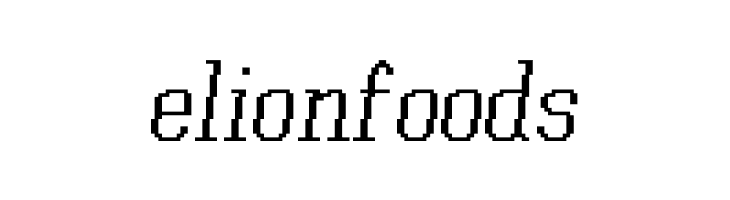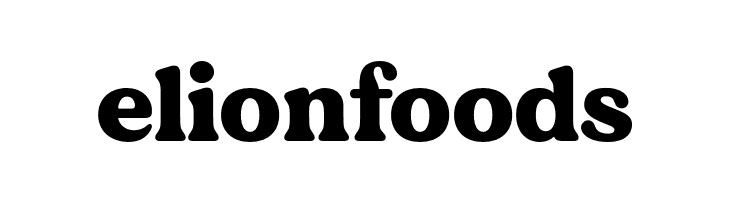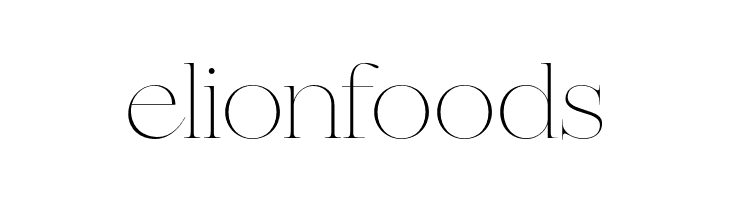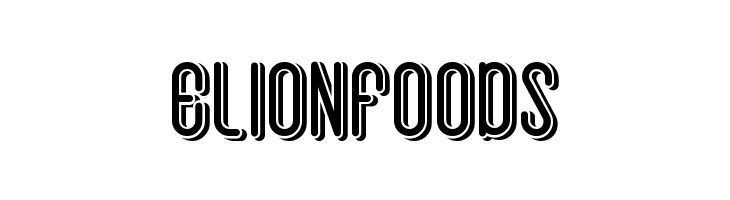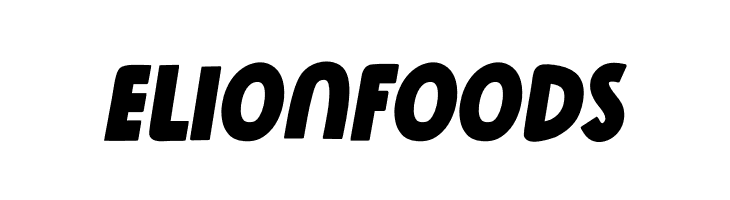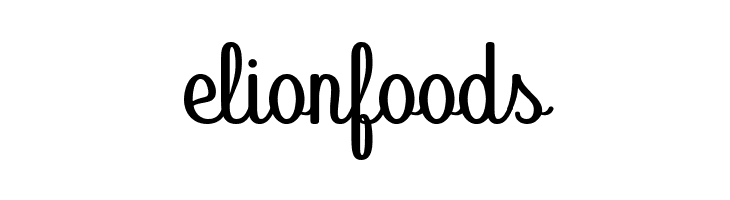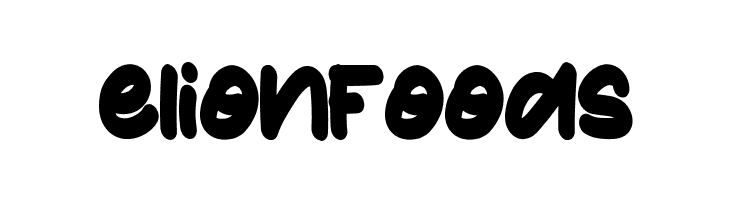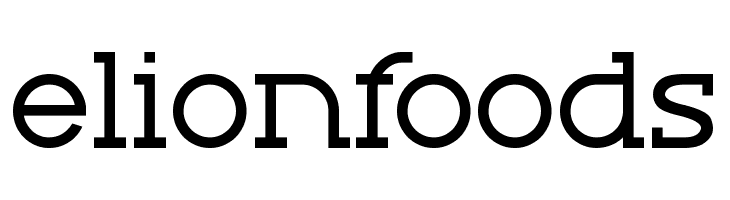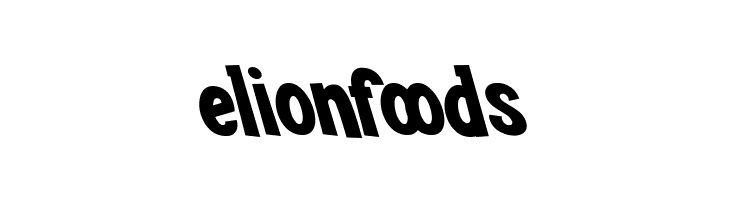
A modern, medium-weight italic font with clean lines and elegant slant.
A bold serif font with strong, elegant strokes and excellent readability.
A thin, high-contrast, modern typeface with elegant and refined features.
A modern, geometric sans-serif font with a light weight and minimalist design.
A bold, decorative font with a retro, three-dimensional outline style.
A bold, italicized font with rounded, playful characters.
A playful, handwritten-style font with rounded, connected characters.
A bold, playful font with rounded, thick strokes and a friendly appearance.
A modern, geometric font with clean lines and rounded edges.
A bold, playful oblique font with a dynamic and energetic style.